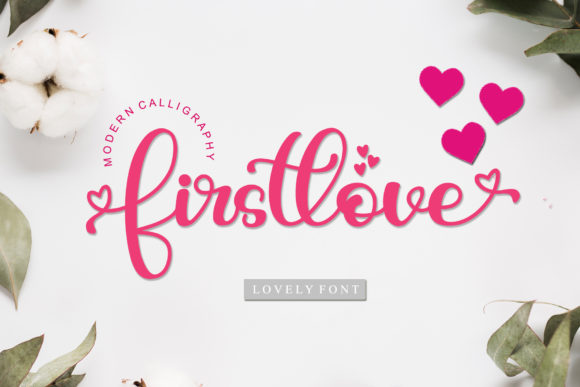
Dive into the realm of Firstlove, a script font that exudes elegance, beauty, and sophistication. Its enchanting characters, reminiscent of a graceful dance along the baseline, will leave you spellbound. Firstlove is more than just a font; it's an artistic masterpiece, carefully crafted by the skilled hands of Letterafa Studio.
With its captivating design, Firstlove is the perfect choice for creating logos that radiate professionalism and creativity. Its versatility shines in wedding invitations, adding a touch of romance and elegance to your special day. Whether you're designing headings, t-shirts, letterheads, signage, labels, or posters, Firstlove will elevate your designs with its timeless appeal.